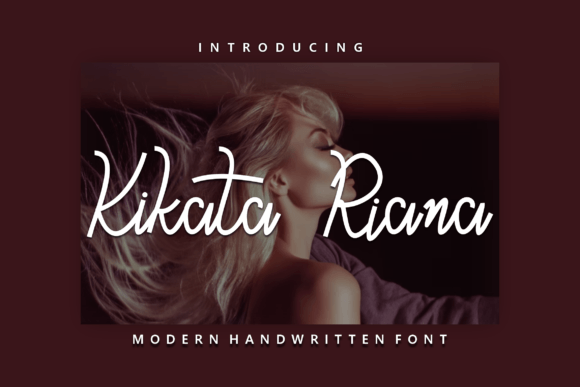
Meet the Kikata Riana Font, a modern and trendy handwritten font that’s sure to elevate any creation. With its cool vibe, this font is perfect for adding a touch of personality to your designs. Whether you’re working on a logo, a social media post, or a marketing campaign, the Kikata Riana Font has the potential to take your project to the next level.
Kikata Riana Font Key Features
- Font Family: Kikata Riana
- Unique Characteristics: A beautiful, elegant script font with a mix of traditional and modern elements, ideal for creative projects, wedding invitations, and other special occasions
Kikata Riana Font Review
Overall, I think the Kikata Riana Font is a lovely addition to any design project. It has a unique, hand-drawn feel that adds a personal touch to digital text. ✨ The subtle imperfections and inconsistencies in the font make it feel more human and less robotic, which can be a great asset in certain design contexts.
One of the things I love about Kikata Riana is its versatility. It’s suitable for both body text and headlines, and can be used in a variety of design projects, from digital products to print materials. ✨ The font also comes in multiple weights, which makes it easy to create a visual hierarchy in your design.
- ⚠️ Limited character set: Kikata Riana only includes a limited set of characters, which may not be sufficient for certain design projects.
- ⚠️ Not ideal for small text: Due to its hand-drawn nature, Kikata Riana can be difficult to read in small text sizes.
Overall, I think the Kikata Riana Font is a great choice for designers who want to add a touch of personality to their projects. While it has some limitations, its unique feel and versatility make it a valuable addition to any design library.